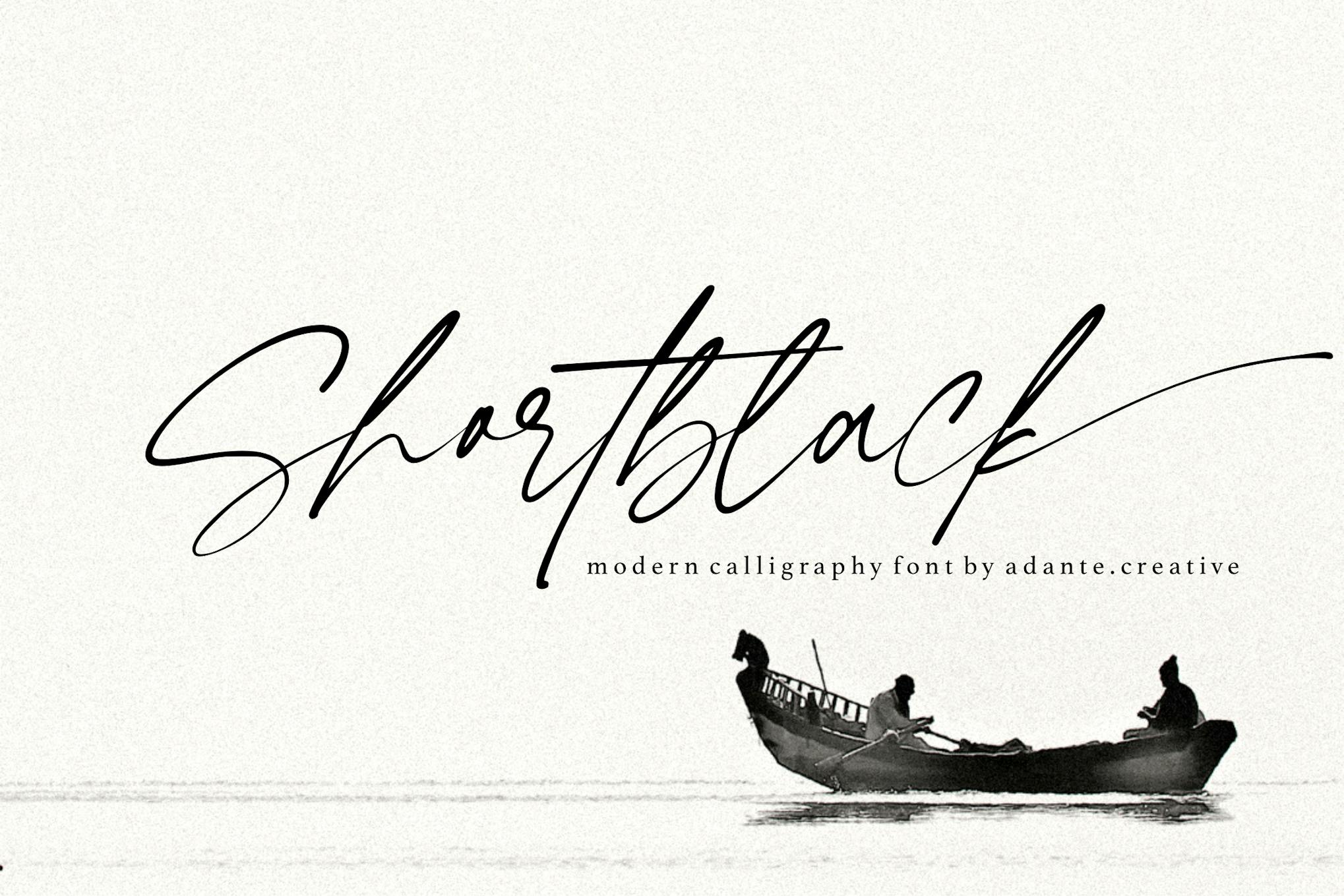
AC - Shortblack Font
Shortblack is a Modern Calligraphy font, typography designs for websites, blogs, magazines, and other publications.These fonts are particularly popular in industries such as fashion, beauty, and lifestyle. This font includes OTF, TTF & Woff Software that you can use to use this font: Adobe Illustrator, Adobe Photoshop, Microsoft Word, Corel Draw, And Inkscape, etc.